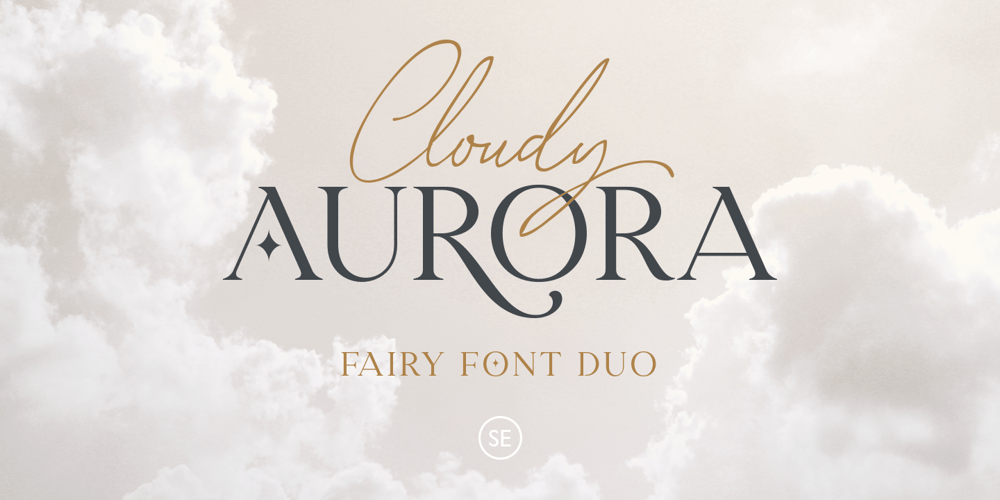
Cloudy Aurora Font Family was designed by Sarid Ezra and published by Sarid Ezra. Cloudy Aurora contains 2 styles and family package options. Cloudy Aurora – Font Duo | Serif & Script Cloudy Aurora is perfect combination between classic and fairy serif with signature script. Contain two fonts, the delicate modern serif and a free hand writing script. This font duo also support multilingual, number and symbol, end swash and many ligatures. Also this font already PUA Encoded.